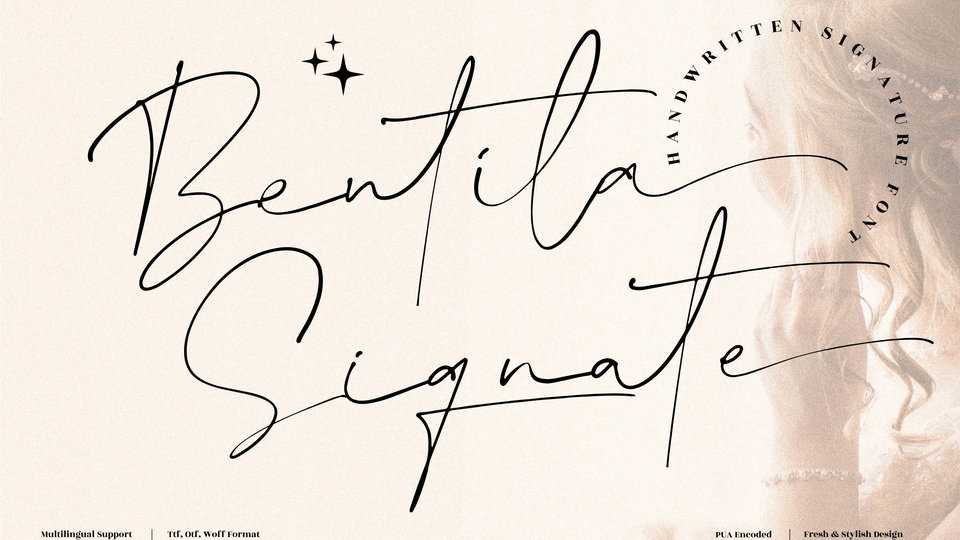
Download Bentila Signate font, a delicate, whimsical and uniquely shaped handwritten font. Trendy and stylish, Bentila Signate will elevate each of your creations.
Designer: Perspectype Studio